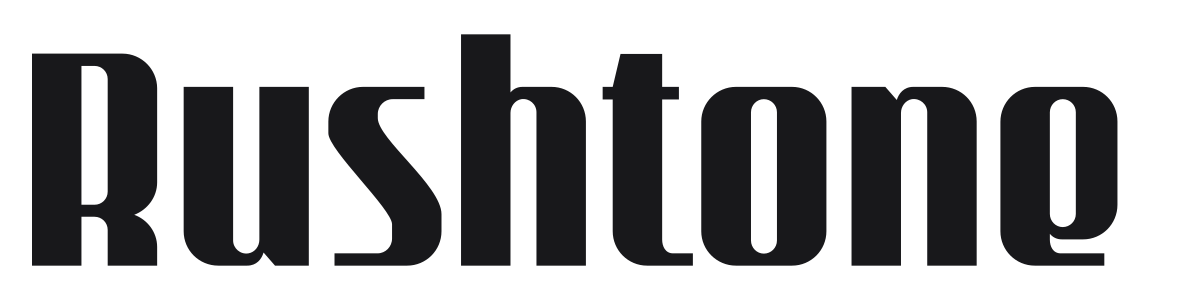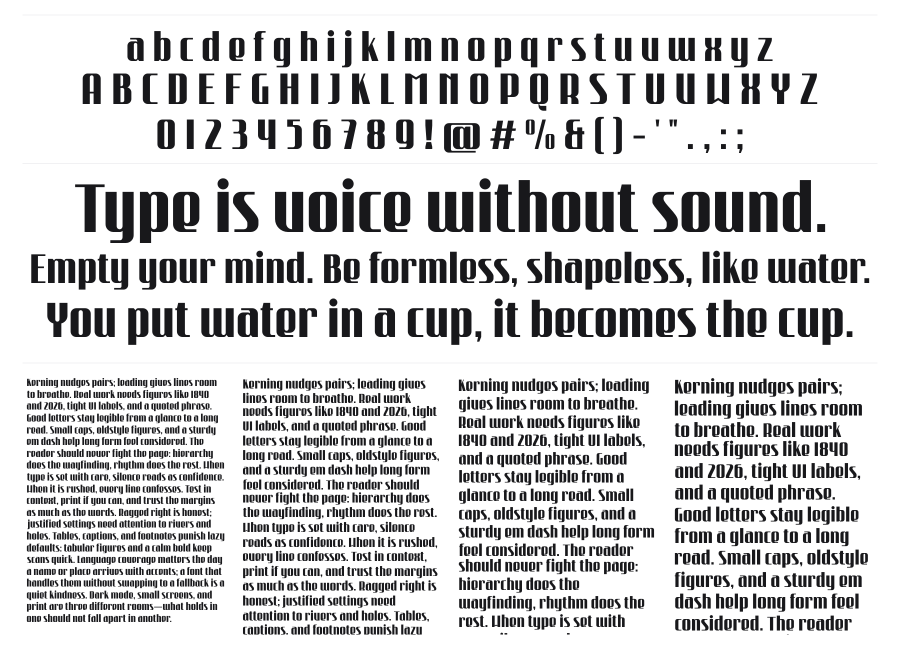
Rushtone
by Aftertime Studio
Rushtone is a heavy condensed sans-serif with tall proportions and a strong art-deco sensibility. Subtle notches and ink-trap-like cutouts at key junctions break up the mass of its thick strokes, adding elegance without softening its impact. A strong choice for posters, editorial headlines, and fashion branding where bold verticality is the point.